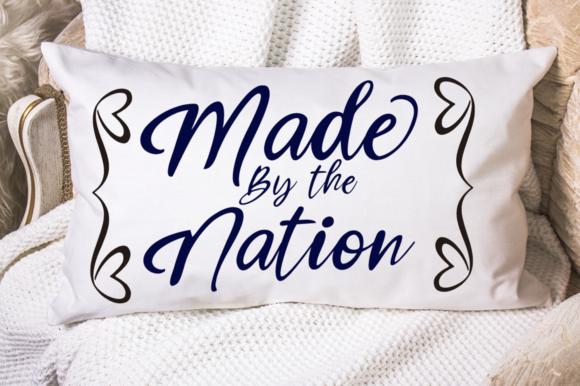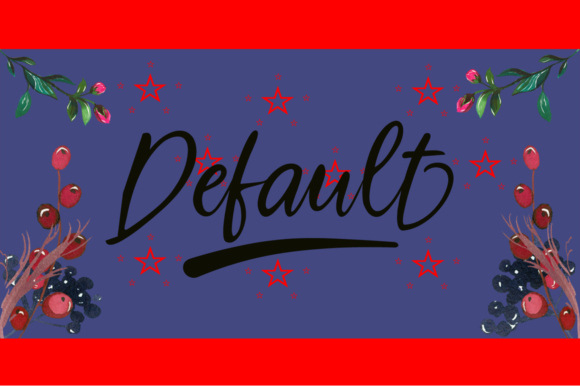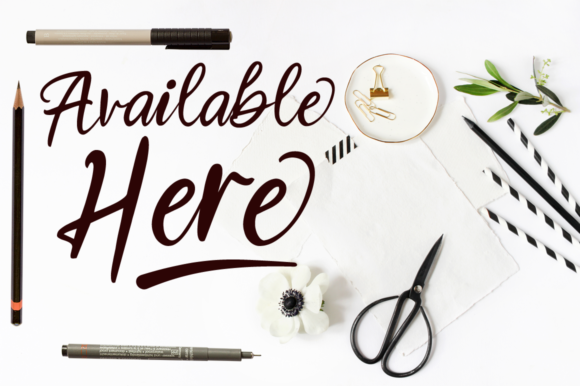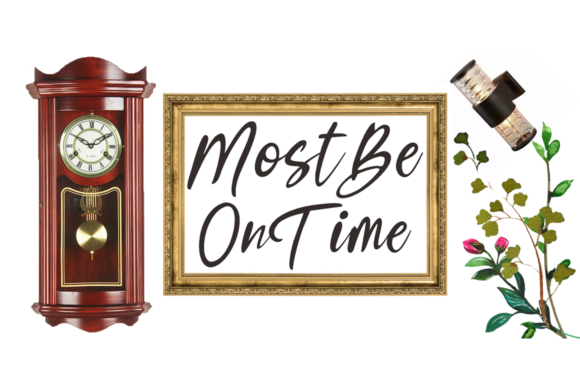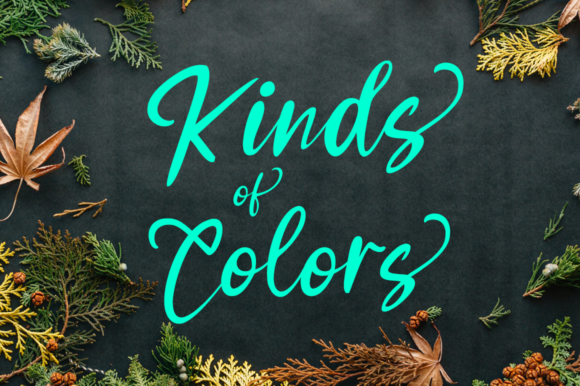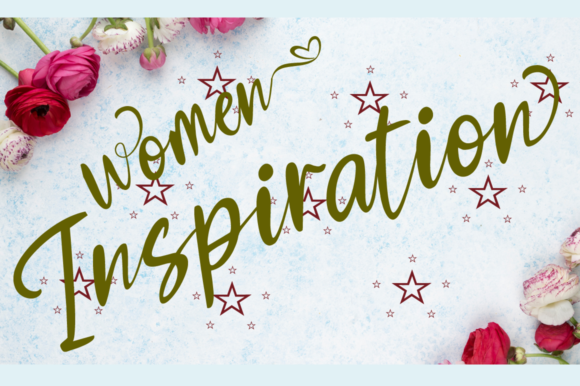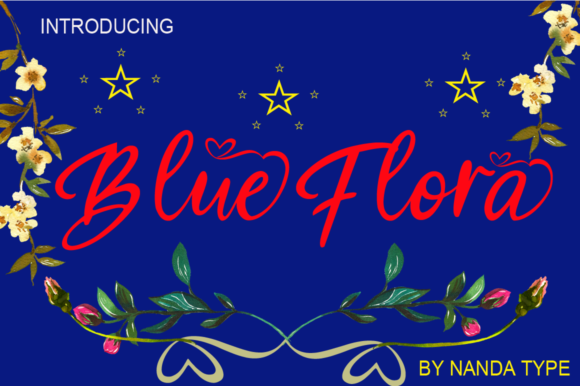
Introducing Blue Flora Font: A Romantic and Sweet Calligraphy Typeface
Are you a designer or crafter looking for a unique and captivating font to add a touch of elegance to your projects? Look no further than Blue Flora Font, a romantic and sweet calligraphy typeface that is sure to charm. This beautiful font features various characters, including a new teenager growing up and dancing along the baseline, giving it a playful and whimsical feel.
What Makes Blue Flora Font Special?
Blue Flora Font is a PUA (Private Use Area) encoded font, which means that you can access all the amazing glyphs and ligatures with ease. This makes it incredibly versatile and perfect for a wide range of design projects, from wedding invitations and stationery to branding and packaging. With Blue Flora Font, you can add a touch of sophistication and glamour to any design.
Key Features of Blue Flora Font
- Romantic and Sweet Calligraphy Typeface: Blue Flora Font features a beautiful, flowing script that is perfect for creating elegant and sophisticated designs.
- PUA Encoded: With PUA encoding, you can access all the glyphs and ligatures with ease, making it simple to create stunning designs.
- Variety of Characters: The font features a range of characters, including a new teenager growing up and dancing along the baseline, adding a playful touch to your designs.
- Perfect for Designers and Crafters: Whether you’re a professional designer or a crafter looking to add a personal touch to your projects, Blue Flora Font is the perfect choice.
Uses for Blue Flora Font
Blue Flora Font is incredibly versatile and can be used for a wide range of design projects, including:
- Wedding Invitations and Stationery: Add a touch of elegance and sophistication to your wedding invitations and stationery with Blue Flora Font.
- Branding and Packaging: Use Blue Flora Font to create stunning brand identities and packaging that stands out from the crowd.
- Signage and Displays: Blue Flora Font is perfect for creating eye-catching signage and displays that grab attention.
- Digital Designs: Use Blue Flora Font in your digital designs, such as social media graphics, blog posts, and more.
Tips for Using Blue Flora Font
To get the most out of Blue Flora Font, here are a few tips:
- Experiment with Different Sizes and Colors: Play around with different sizes and colors to find the perfect combination for your design.
- Pair with Other Fonts: Blue Flora Font pairs beautifully with other fonts, so don’t be afraid to experiment with different combinations.
- Use for Headings and Titles: Blue Flora Font is perfect for headings and titles, adding a touch of elegance and sophistication to your designs.